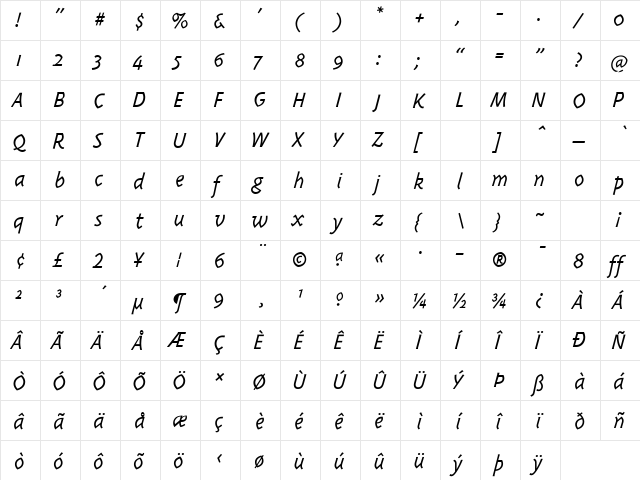
Triplex-Light LightItalic
Design Context for Triplex-Light Typeface
Triplex-Light offers clean, dependable letterforms without strong stylistic allegiance, making it a practical choice for designers who need flexibility. The slanted form adds forward momentum and visual energy. Its slender proportions lend an understated elegance to any composition.